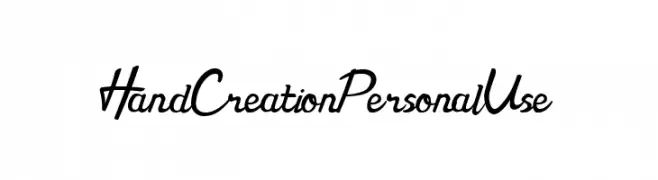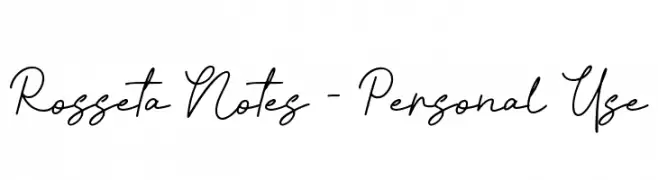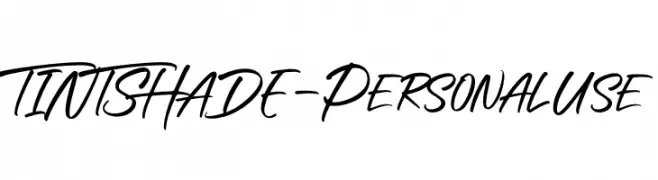
( www.aringtypeface.com )
A dynamic script font with a fluid, handwritten style.
( Fonts by Roland Huse - rolandhuse.com )
A fluid, handwritten-style font with an organic and personal touch.
( Fonts by Linh Pham Thi Dieu )
A charming handwritten font with fluid, continuous strokes and a personal touch.
( Fonts by Måns Grebäck )
A dynamic and expressive handwritten font with flowing, irregular strokes.
( Fonts by Måns Grebäck )
A dynamic and expressive handwritten font with fluid strokes.
( Fonts by Måns Grebäck )
A playful, whimsical script font with a handwritten style.
( Fonts by Måns Grebäck )
A dynamic, cursive script font with fluid, connected strokes and a bold, expressive style.
A lively and expressive script font with fluid strokes and a handwritten style.
( Fonts by Maelle.K | Thomas Boucherie )
A dynamic and elegant script font with fluid, cursive strokes.
A flowing cursive font with elegant, sweeping curves and fluid connections.
A flowing, elegant cursive font with a classic yet modern appeal.
( Fonts by Måns Grebäck )
A dynamic, expressive handwritten font with fluid strokes and a casual flair.
( Fonts by Maelle.K | Thomas Boucherie )
Elegant cursive font with a fluid, handwritten style.
( Fonts by Aleksandar Stevanov )
A dynamic handwritten font with fluid strokes and a personal touch.
( Fonts by Billy Argel )
A bold, textured script font with a hand-drawn, connected style.
A dynamic and flowing script font with elegant, connected letterforms.
A graceful, cursive font with elegant, flowing strokes.
A dynamic, expressive font with a blend of script and decorative styles.
A playful, bold font with a handwritten, script-like style.
A bold, fluid script font with dynamic strokes and interconnected letters.